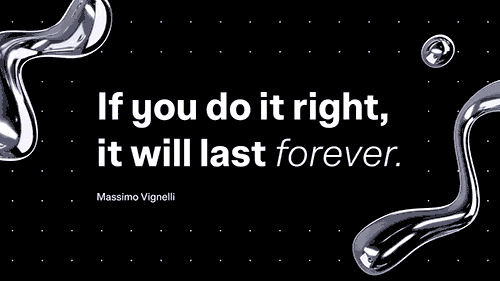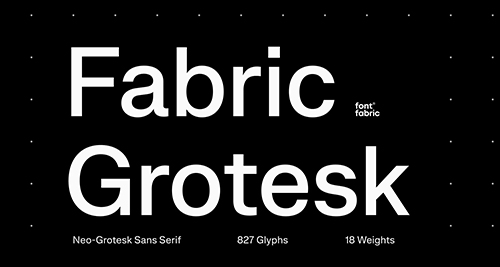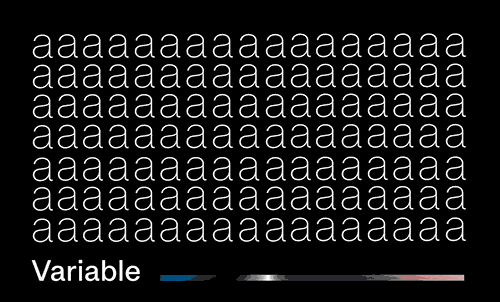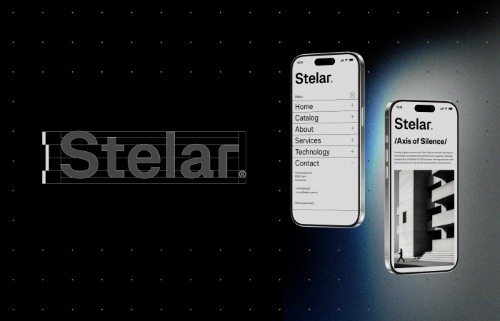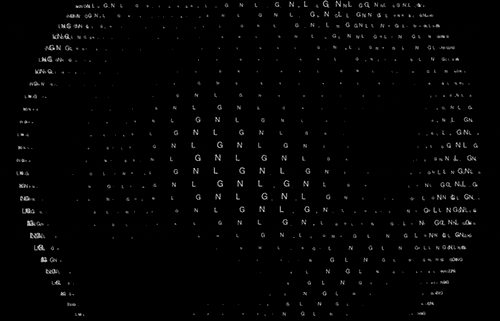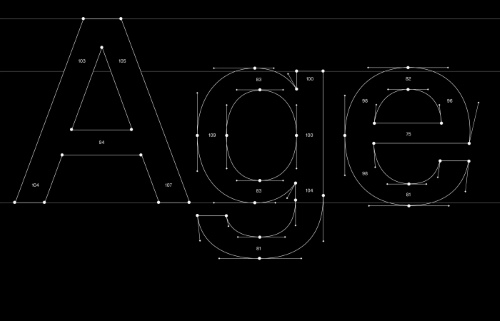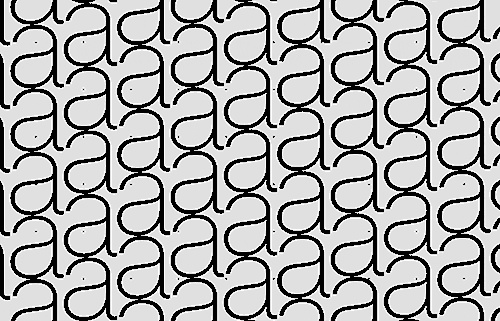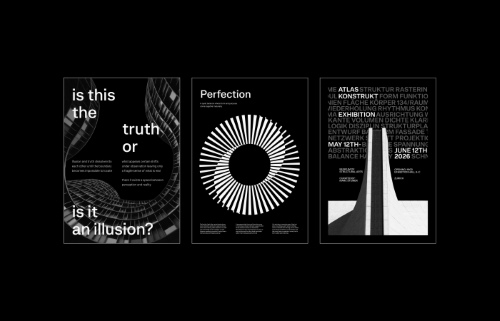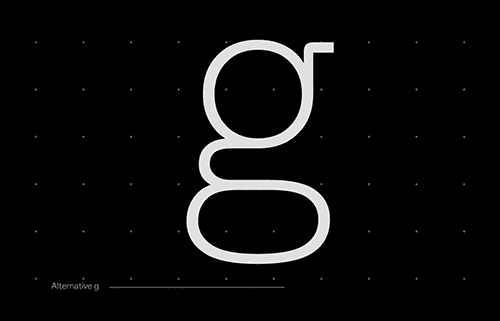
Fabric Grotesk - 18 Static Styles + 1 Variable Font NEW!
• Fabric Grotesk is our take on the Neo-Grotesk tradition that defined much of mid-century modern design. Inspired by the visual clarity of the Swiss and International Graphic Style, and by masters such as Armin Hofmann and Josef Müller-Brockmann, we set out to create one of the most versatile and broadly usable typefaces in the Fontfabric library. Its refined shapes, clean horizontal and vertical terminals, and carefully balanced curves give Fabric Grotesk a timeless, confident feel. Under the hood, it is just as practical as it is polished, with Extended Latin and Cyrillic support, Bulgarian Cyrillic forms, rich alternates, and a display-oriented stylistic set for moments when the design needs a sharper, more contemporary edge.
Fabric Grotesk
a Neo-Grotesk Sans Serif Typeface of 18 Styles + 1 Variable Font
• Fabric Grotesk is a Neo-Grotesk Sans Serif typeface designed for a wide range of visual communication needs, from brand systems and editorial layouts to websites, interfaces, campaigns, and packaging. Its uniform construction, crisp rhythm, angular display alternatives, and strong legibility across small and large sizes make it an excellent choice for creatives who want to make a lasting impression with their work.
• Whether you're building a modern identity, designing a magazine spread, shaping a clean website, or creating a flexible design system, Fabric Grotesk gives you clarity, consistency, and range. It feels neutral when needed, but never bland. It can stay quietly functional in body copy and step forward with more character in headlines thanks to its alternate display details.
• With 18 static styles and 1 variable font, plus advanced OpenType features and multilingual support, Fabric Grotesk is built for serious design work across print and screen. It is the kind of workhorse that helps you move fast, stay consistent, and keep the typography looking sharp from first draft to final output.
• Fabric Grotesk supports Extended Latin and Cyrillic, including Bulgarian Cyrillic forms, making it suitable for multilingual branding and editorial systems. It also comes with a full set of OpenType features, including alternates, stylistic sets, localized forms, ligatures, and case-sensitive forms for more precise and expressive typography